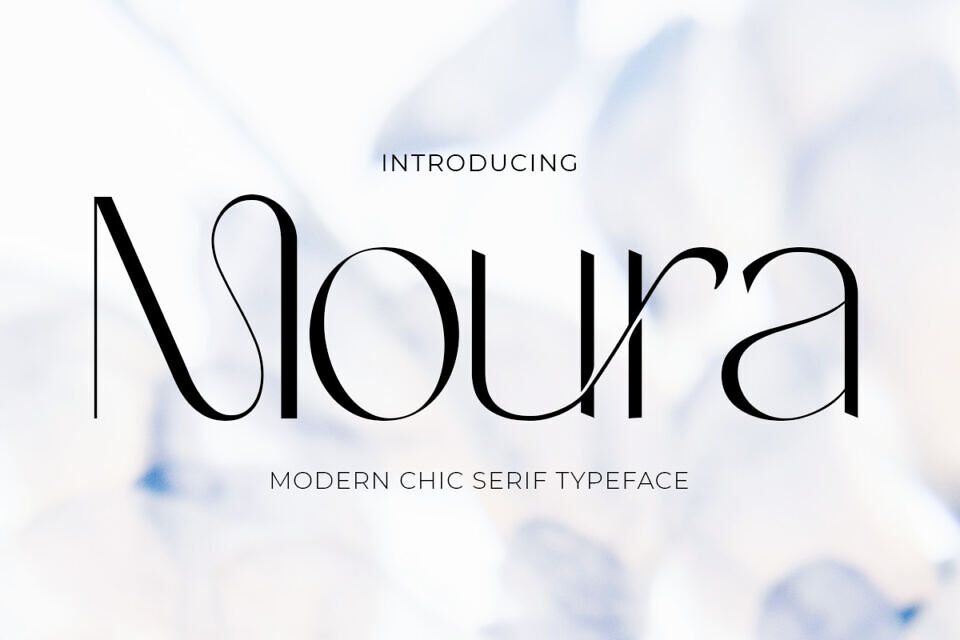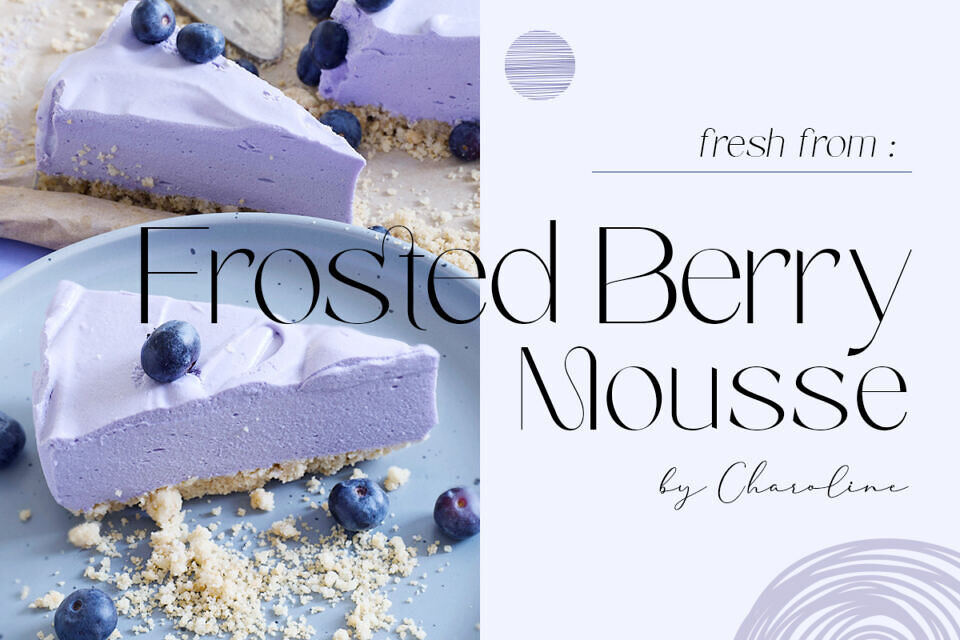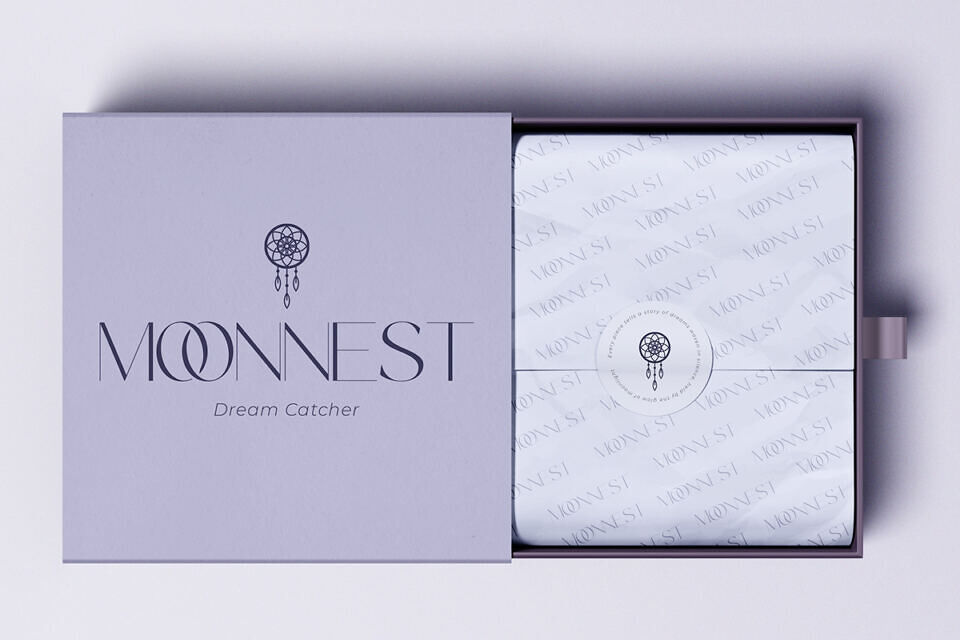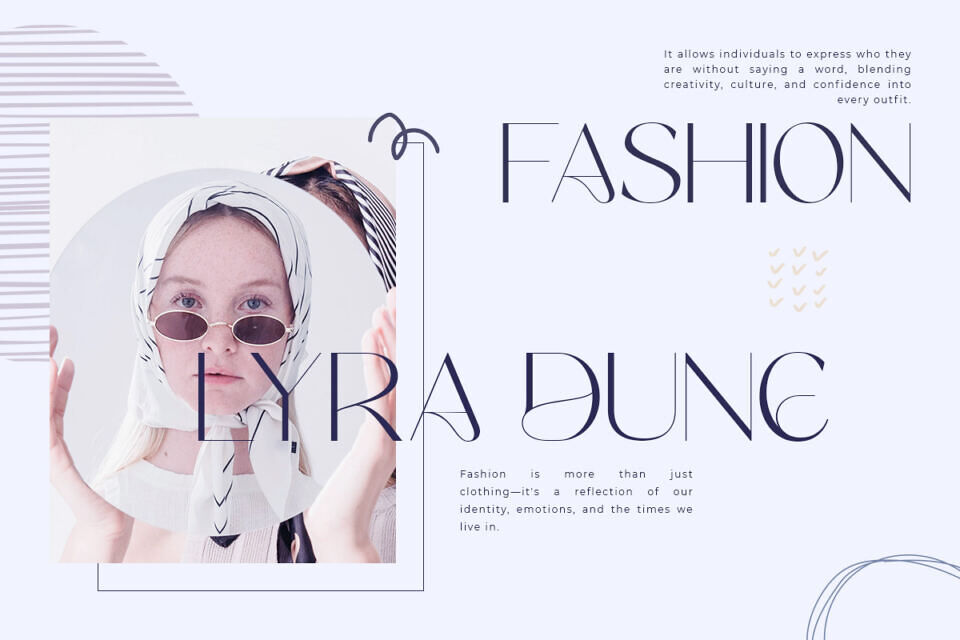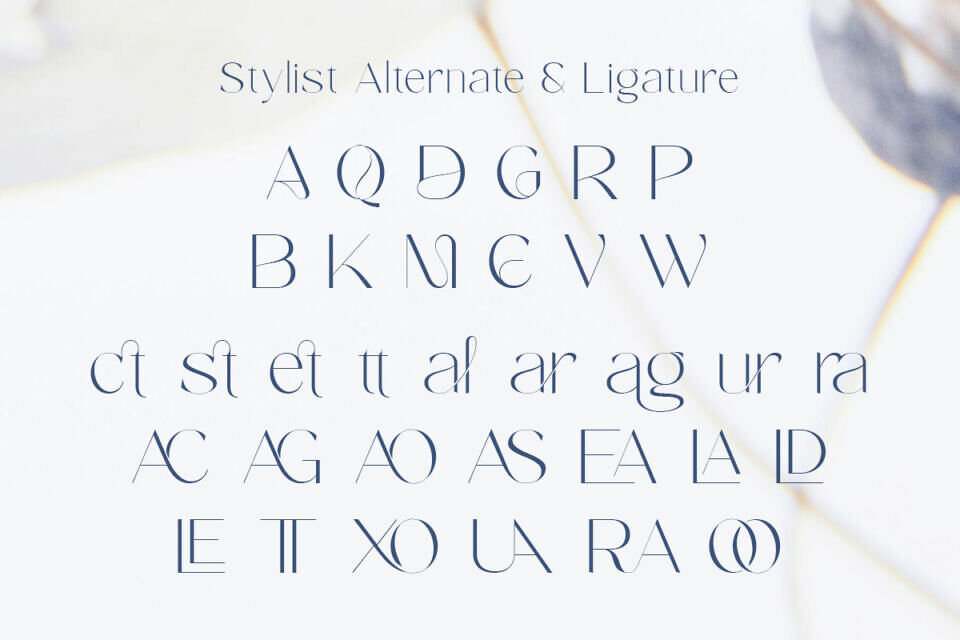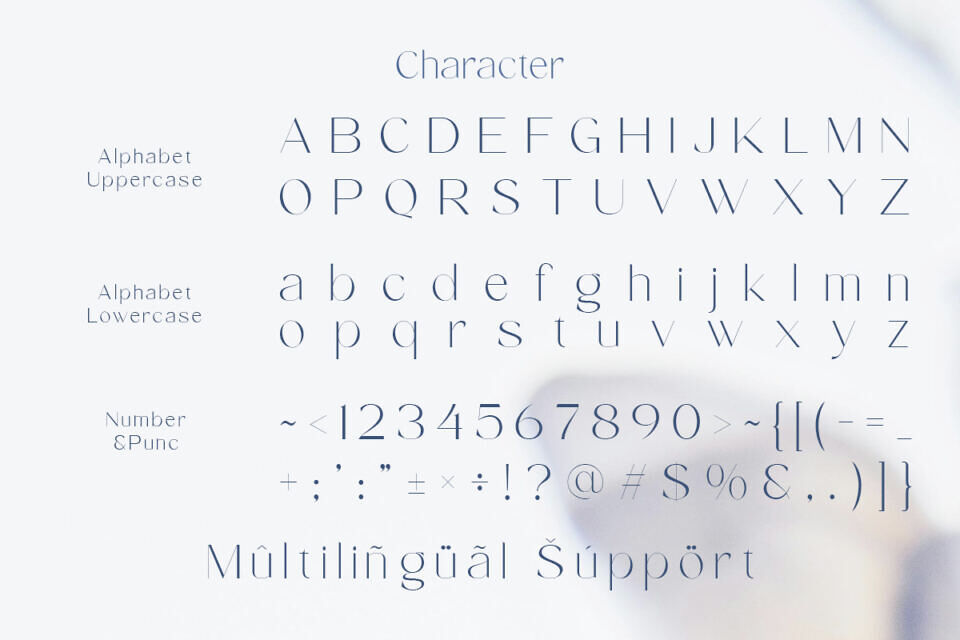
Moura Font
Moura is a modern, elegant sans serif font that exudes creativity and sophistication. Its clean lines, soft curves, and high-contrast strokes create a refined silhouette.
Perfect for luxury and lifestyle brands, Moura works well in various applications, from packaging to social media. It adds an air of exclusivity and intention, making it a powerful tool for storytelling and visual communication, conveying trust and modern flair without overwhelming the design.